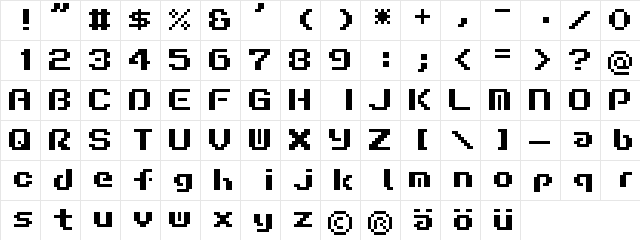
Liquid Kidz Regular
| Designer | ck! [freakyfonts] |
Design Context for Liquid Kidz Typeface
Liquid Kidz takes a measured approach to typography — its balanced proportions and neutral character make it a reliable workhorse for both digital and print work.